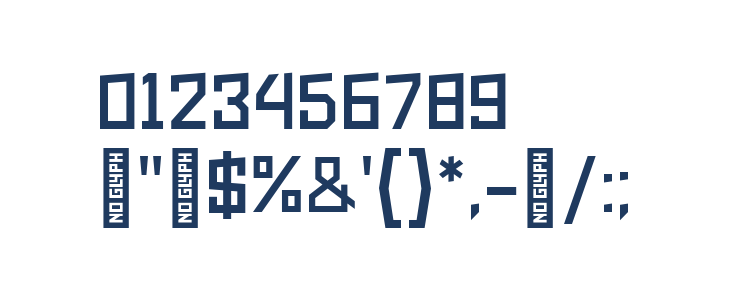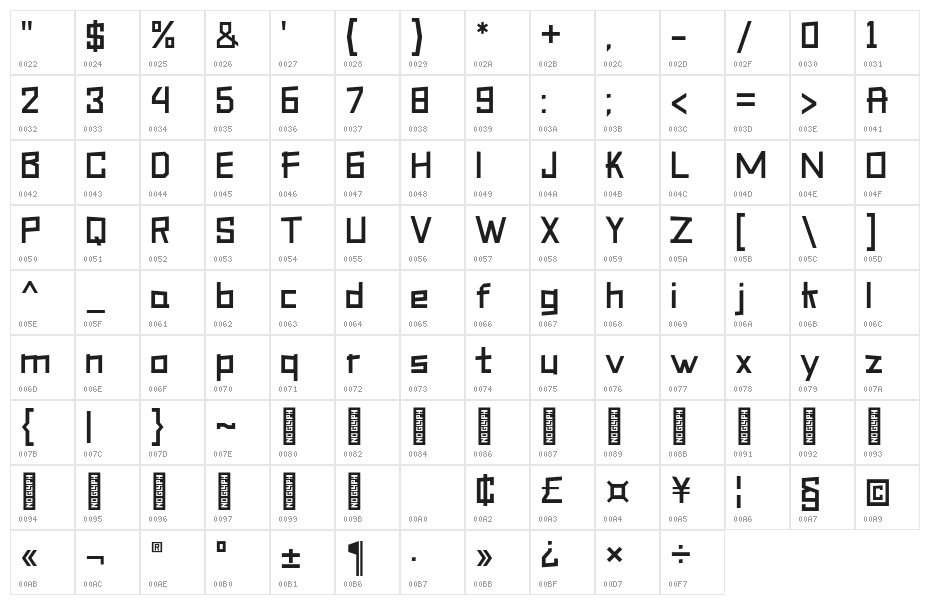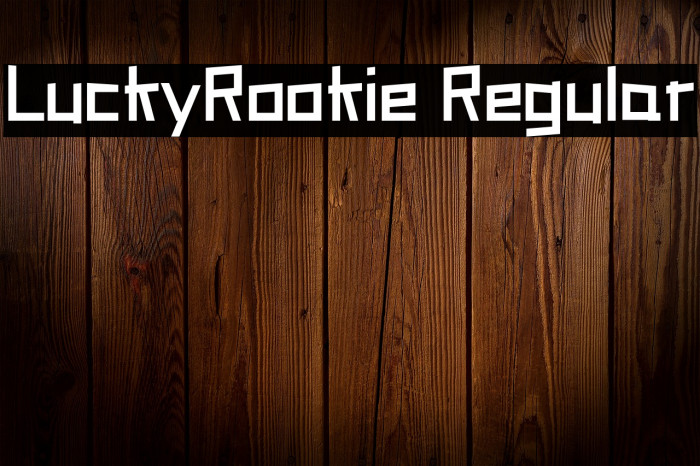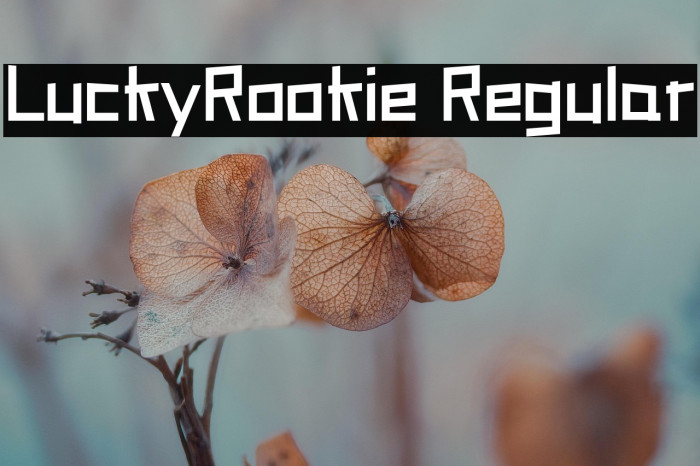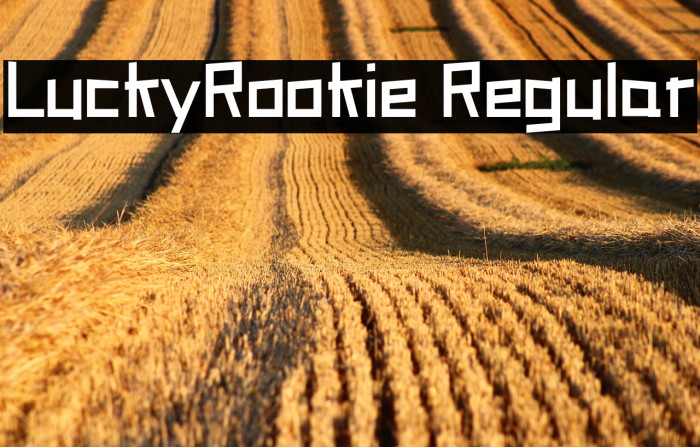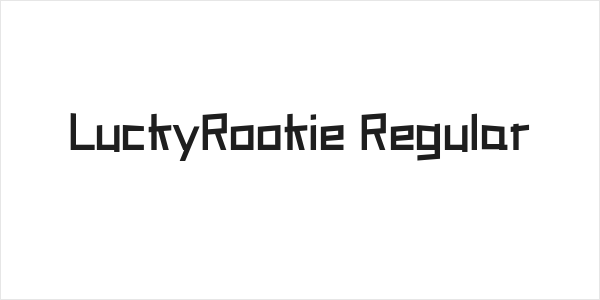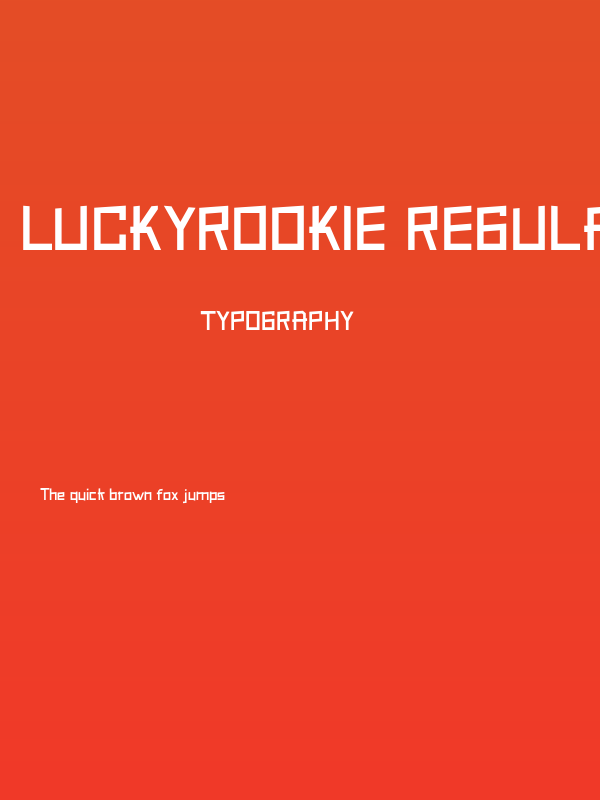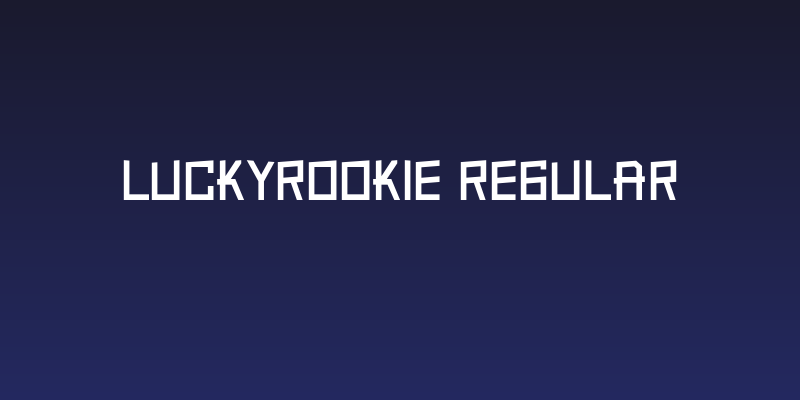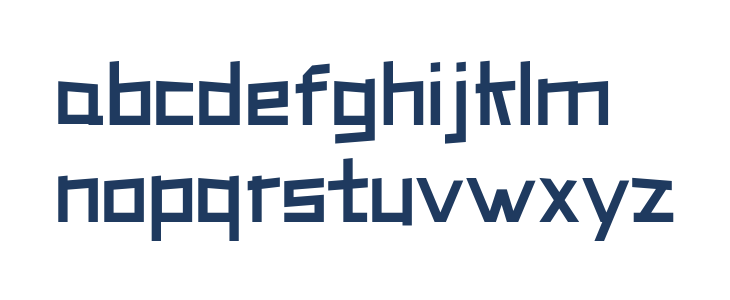
LuckyRookie Regular Font
LuckyRookie Regular Description
This font features a bold, geometric style with a modern twist. The characters are constructed with sharp angles and straight lines, giving it a distinct, edgy appearance. Uppercase and lowercase letters maintain a consistent height, contributing to a uniform look. The numerals are equally bold and angular, ensuring readability. Special characters are designed to match the overall aesthetic, with a focus on symmetry and balance. This font's unique style makes it stand out, making it suitable for eye-catching designs.